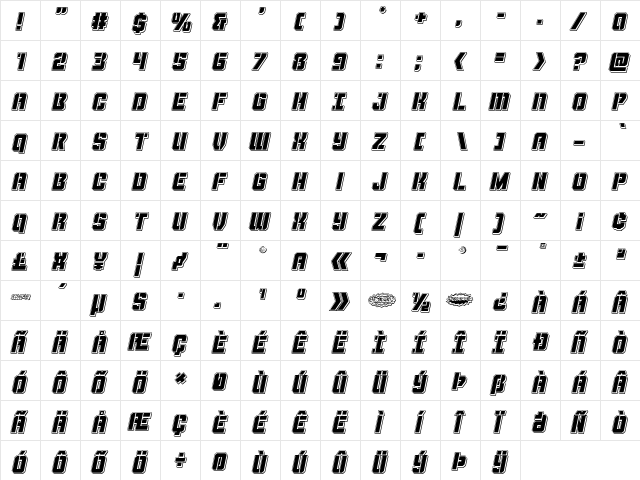
Thunder Trooper Punch Italic Italic
Design Context for Thunder Trooper Punch Italic Typeface
Thunder Trooper Punch Italic is a composed and adaptable typeface that performs quietly and consistently across a wide range of design contexts. The slanted form adds forward momentum and visual energy.